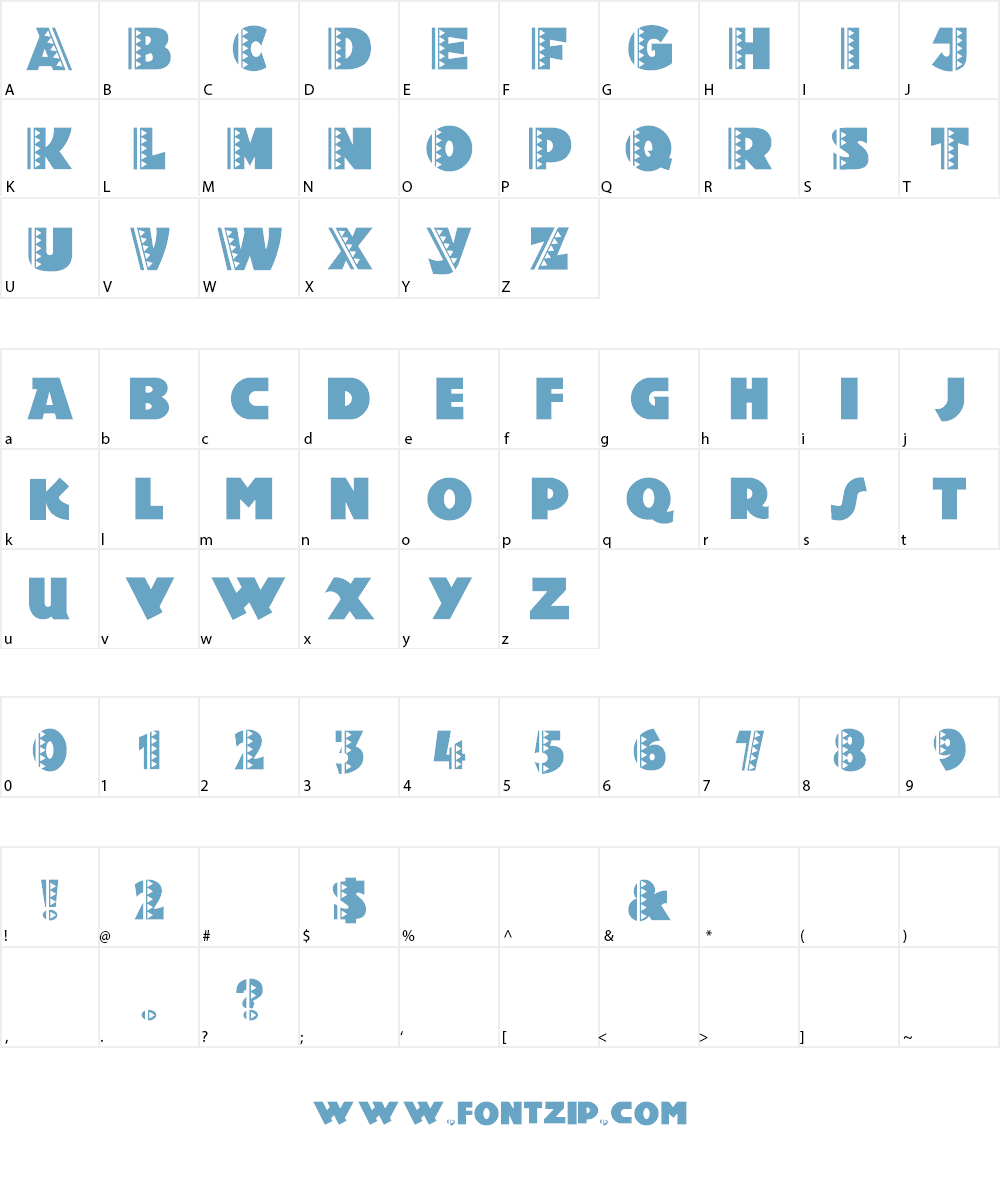
Two, two, two fonts in one, both roughly based on the venerable Publicity Gothic. Festive uppercase letters and numbers, rather prosaic but nonetheless idiosyncratic lowercase letters (which are really uppercase letters, but why quibble?).